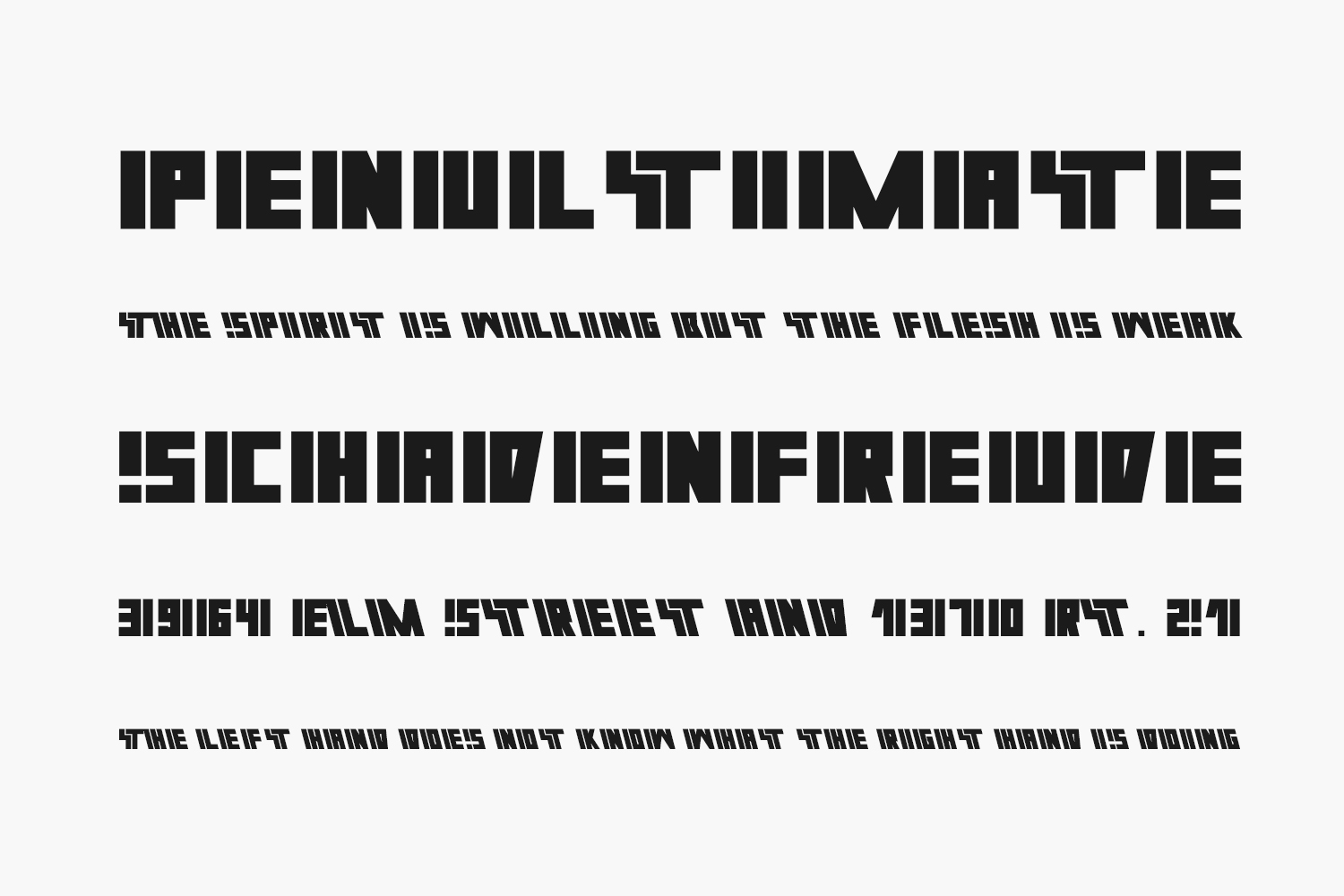
Fuixg Free Font is a cool, bold, and futuristic display font. This font is ideal for writing web designs, business cards, or pretty much anything else that requires a unique touch. Fuixg Free Font was designed by Eitiqad is a demo and free for personal use only. Please purchase the full version for commercial use.